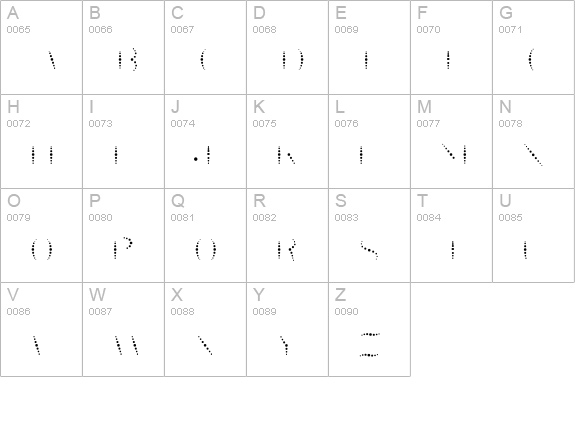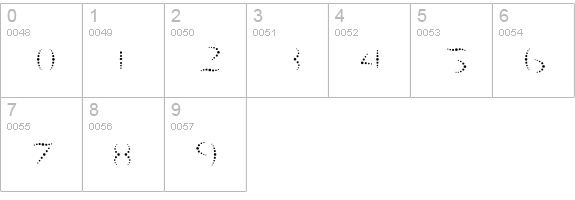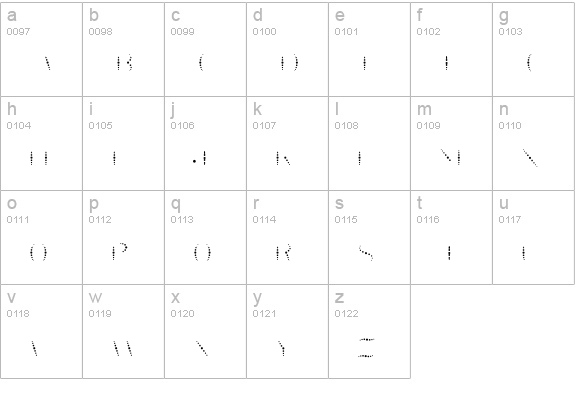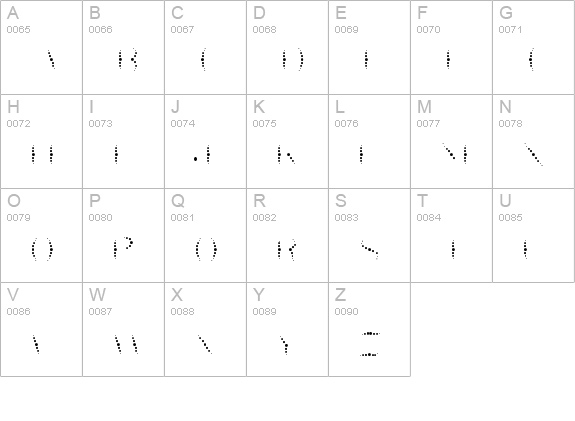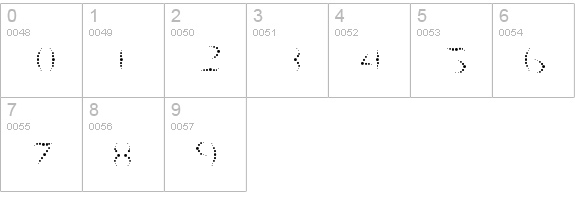
Introducing Taqueria Open Fill Dots font, a captivating typeface that will bring a burst of energy and vibrancy to your designs. This font is the perfect fusion of boldness and playfulness, making it ideal for a wide range of creative projects. The Taqueria Open Fill Dots font features a unique design with rounded edges and filled dots, giving it a distinctive and eye-catching appearance. Its fluid and dynamic letterforms effortlessly create an energetic and lively atmosphere, making it perfect for logos, headlines, posters, and more. What sets Taqueria Open Fill Dots font apart is its versatility. Whether you are designing for a trendy streetwear brand, a hipster coffee shop, or a lively music festival, this font has got you covered. Its bold and expressive nature instantly grabs attention and leaves a lasting impression. But the best part is that Taqueria Open Fill Dots font is freely available to download at FontsMarket.com. Yes, you heard it right! You can now access this incredible font without any cost, making it an excellent choice for budget-conscious designers and creatives. With its extensive character set, Taqueria Open Fill Dots font supports multiple languages, ensuring that your message can reach a global audience. It also includes various punctuation marks and symbols, allowing you to add that extra touch of creativity to your designs. So, what are you waiting for? Dive into the world of Taqueria Open Fill Dots font and unleash your creativity like never before. Download it for free at FontsMarket.com and watch your designs come to life with its captivating charm and energy.